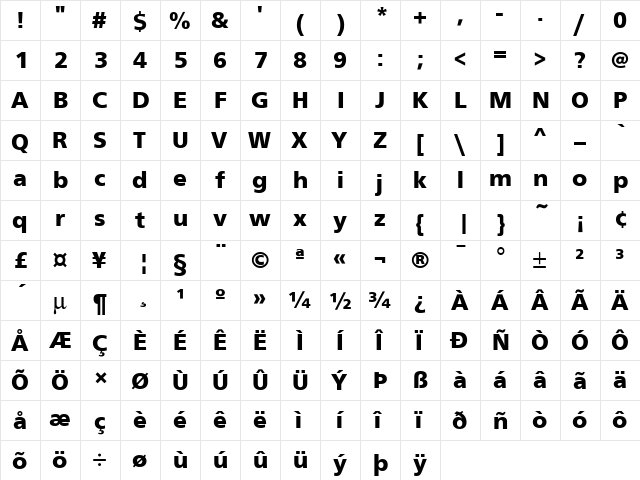
Frutus T Bold
Design Context for Frutus T Typeface
Frutus T is a composed and adaptable typeface that performs quietly and consistently across a wide range of design contexts. The heavy weight commands attention and anchors typographic hierarchies.
Pro Tip: Pair Frutus T with a font of contrasting weight or personality to build a more expressive typographic hierarchy.